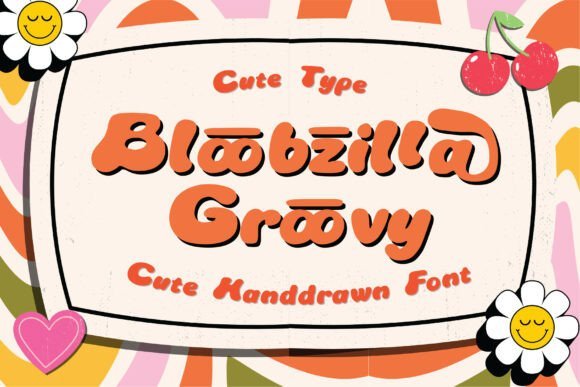
Introduction to Bloobzilla Groovy Font
Bloobzilla Groovy is a bold, bubbly, and cheerful display font designed to bring retro happiness and playful energy into your designs.
Featuring thick rounded letterforms, soft organic curves, and a hand-drawn groovy style, this font captures a warm vintage 70s vibe with a modern cute twist Its smooth, chunky shapes and friendly personality make it perfect for t-shirt designs, hoodies, stickers, kids branding, nursery decor, posters, social media graphics, packaging, quotes, merchandise, logos, and playful headlines.